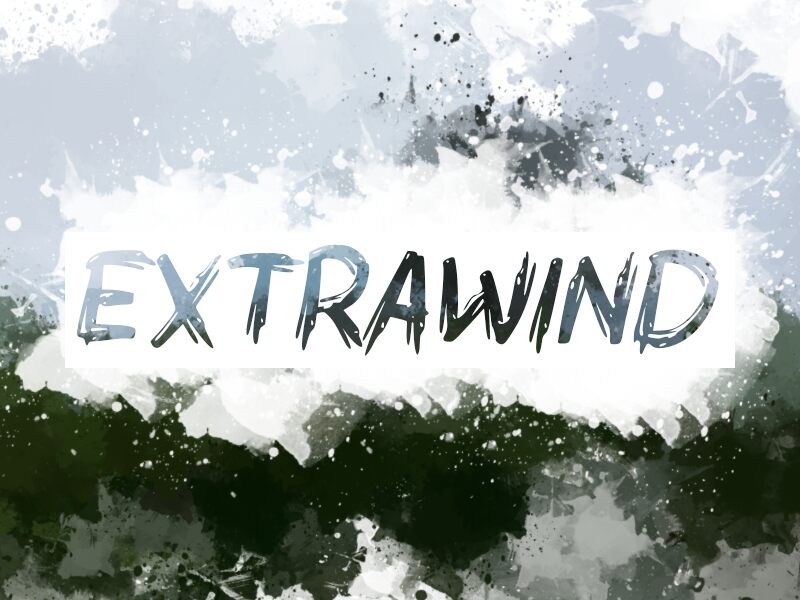
EXTRAWIND
Extrawind font is a superb artistic brush font by wep. The edgy typeface includes irregular, grungy, and textured elements adding an overall unique look to your designs. Its unusual aesthetic is guaranteed to captivate the attention of your audience making it an effective communication tool.
This free calligraphy font can be highly useful in poster or brochure titles, branding, packaging designs for food and health-related projects among many others. It also has nice potential in logo design and as part of web user interfaces like sites or applications.